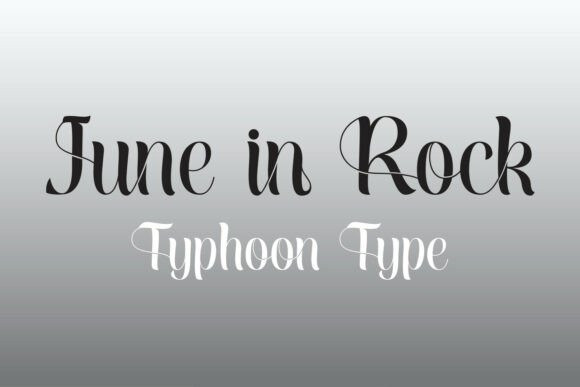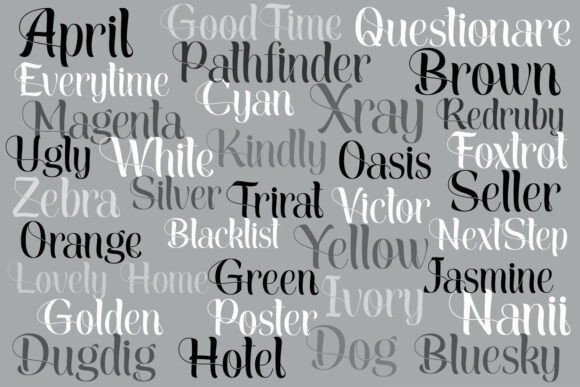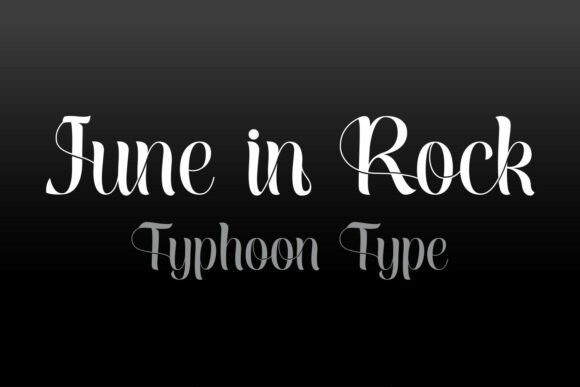
June in Rock Font
June in Rock Font is a contemporary and elegant typeface inspired by classic uppercase letterforms, reimagined through the art of chiseled-tip pen strokes. The font combines the clarity and readability of standard sans-serif letters with subtle, flowing details that give it a unique personality.
Each capital letter features fine, pencil-like strokes and carefully designed swashes that seamlessly connect to the following letter, enhancing the typeface’s distinctive style. Vowels such as c, i, e, o, u are specially crafted to connect beautifully with letters like h, k, m, n, creating harmonious, visually appealing wordforms.
Additionally, all lowercase letters come with a set of alternate characters (PUA-encoded) designed for decorative purposes, perfect for adding flair to the ends of sentences or creating elegant typographic compositions. June in Rock is ideal for modern branding, editorial design, social media graphics, and any project that calls for a readable yet stylish font with a touch of personality.